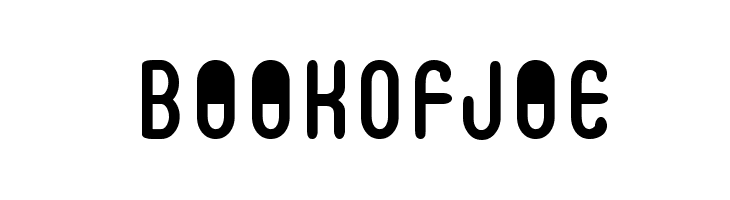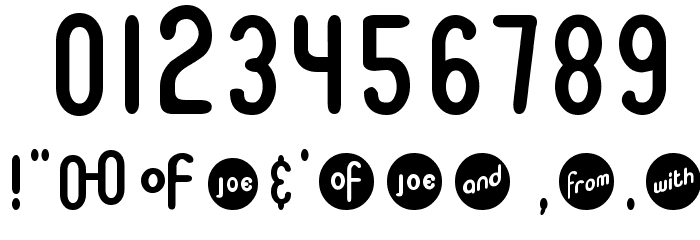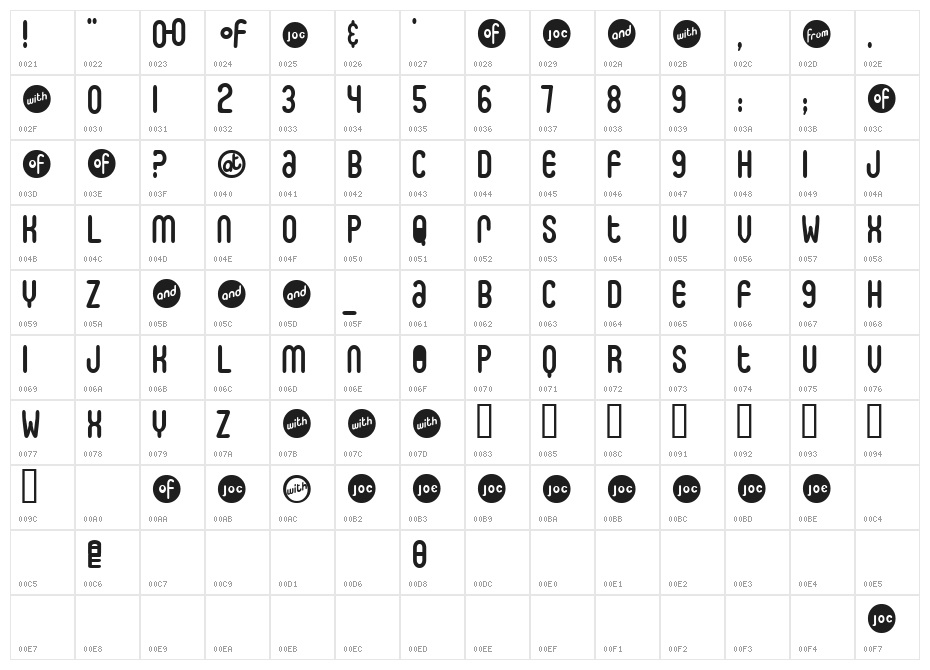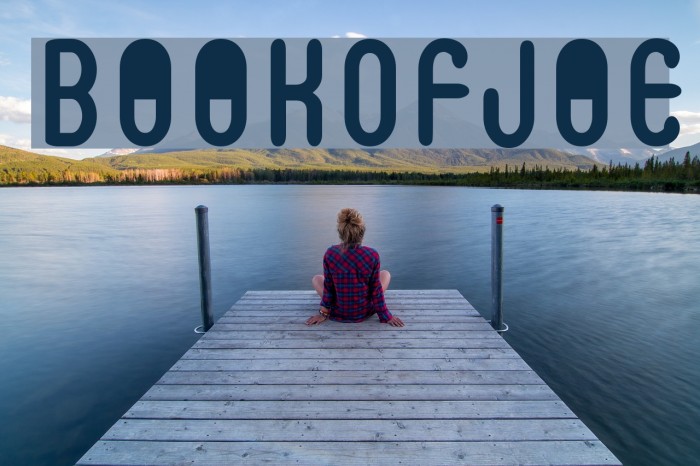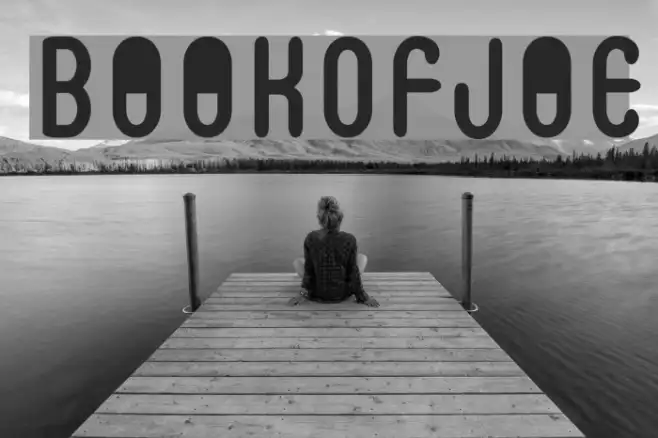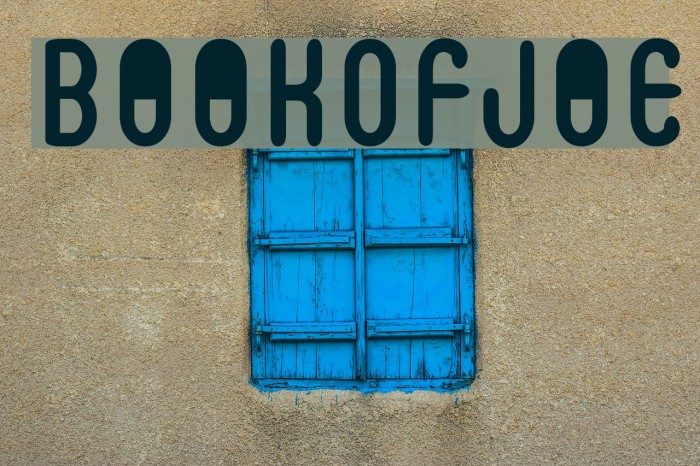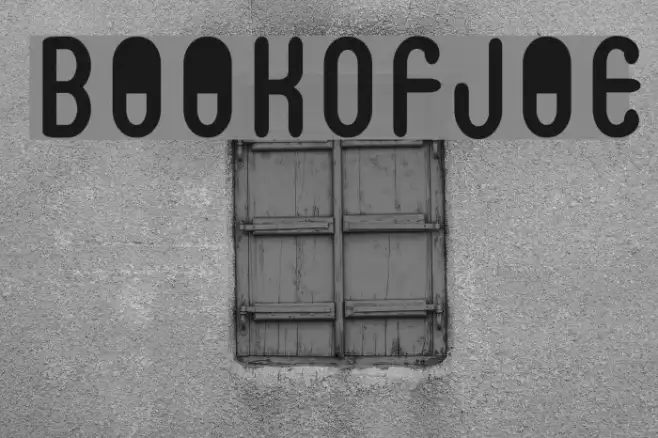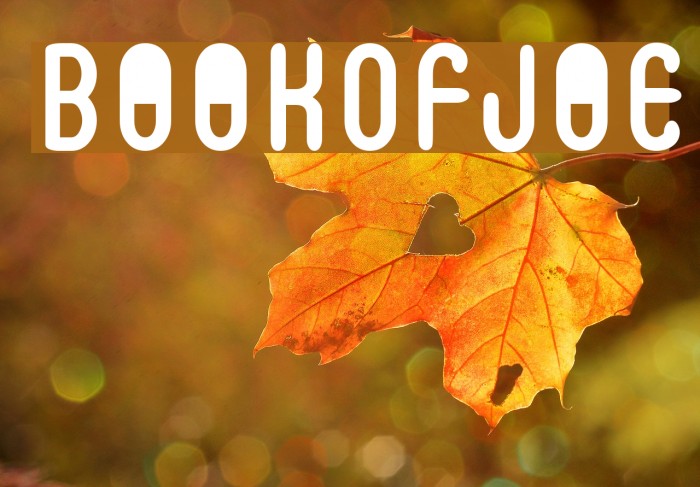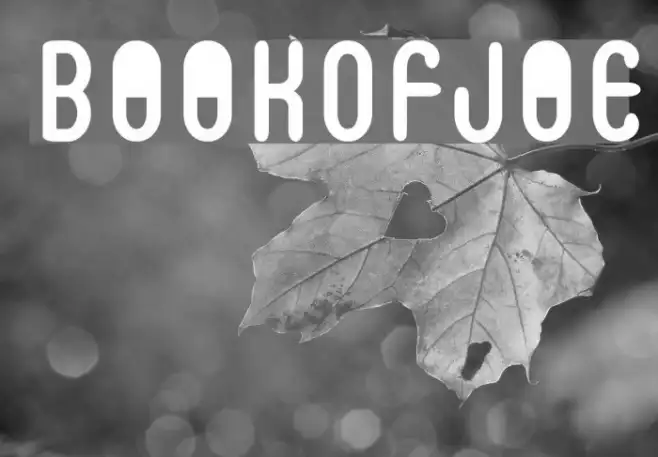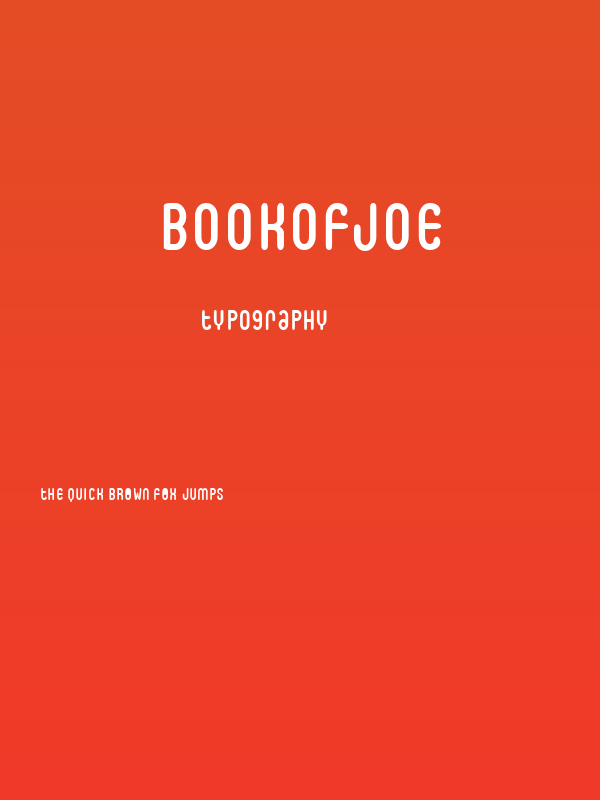
BookOfJoe Font
BookOfJoe Description
This font features a playful and rounded design, characterized by its bold and smooth curves. The letters have a consistent thickness, giving it a modern and approachable feel. The uppercase and lowercase letters maintain a uniform style, with rounded edges that soften the overall appearance. The numbers and special characters follow the same design principles, ensuring a cohesive look across all elements. This font is particularly suitable for projects that require a friendly and informal touch, such as children's books, playful branding, or casual invitations.
| Proposed Projects | Ideal for children's books, playful branding, casual invitations, and informal digital content. |